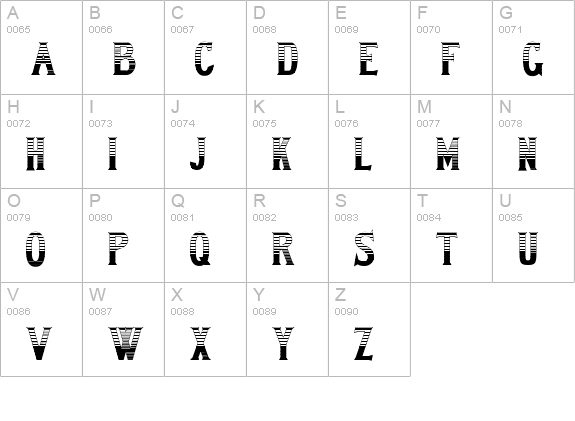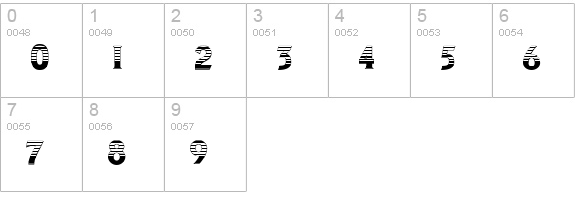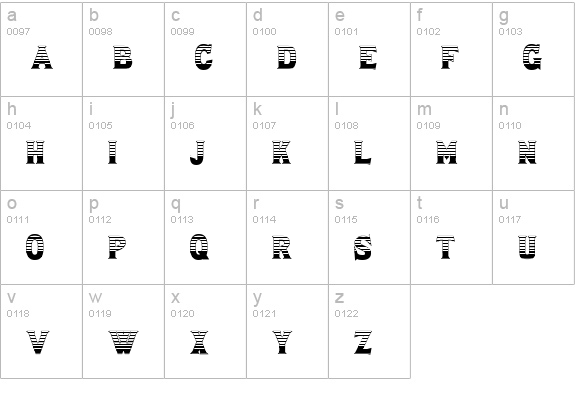
LewishamStripe Font Details
LewishamStripe font is a modern and stylish typeface that adds a touch of sophistication to your design projects. With its clean lines and unique striped detailing, this font is perfect for creating eye-catching titles, headings, and logos. The versatility of LewishamStripe font allows it to be used in a variety of design contexts, from digital graphics to print materials. What makes LewishamStripe font even more appealing is that it is available for free download at FontsMarket.com. This means you can easily access this high-quality font without any cost, making it a valuable addition to your font collection. Whether you're a graphic designer, a branding specialist, or a creative enthusiast, LewishamStripe font offers endless possibilities for your creative endeavors. Download LewishamStripe font today and elevate your design projects with its sleek and modern aesthetic.